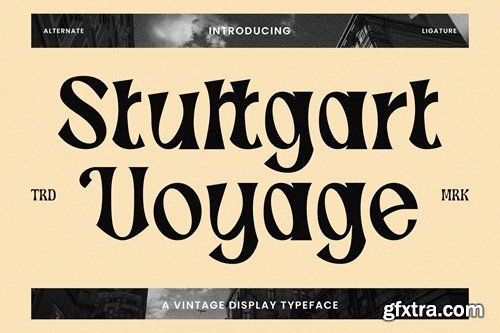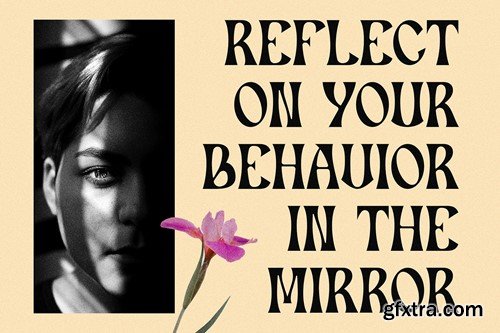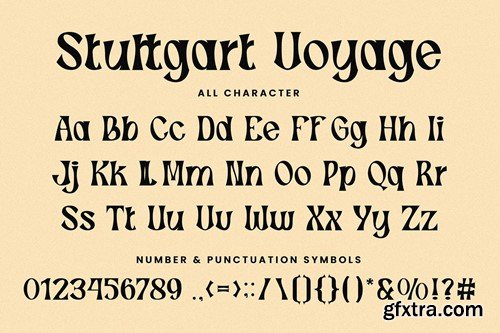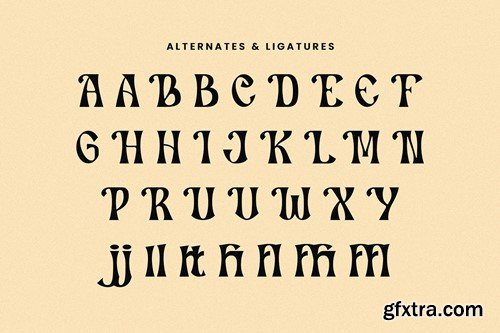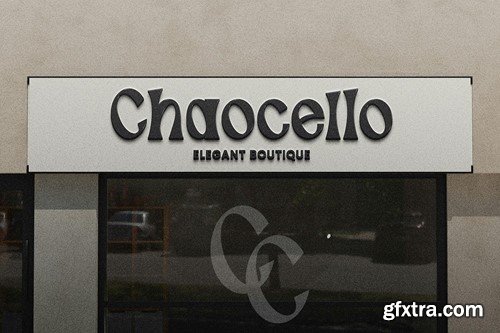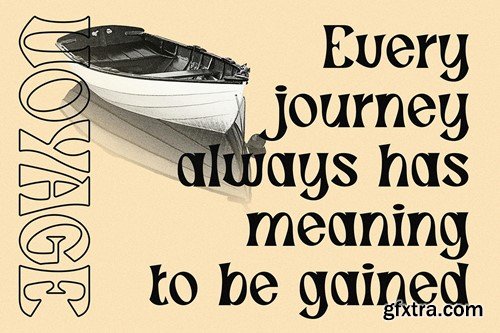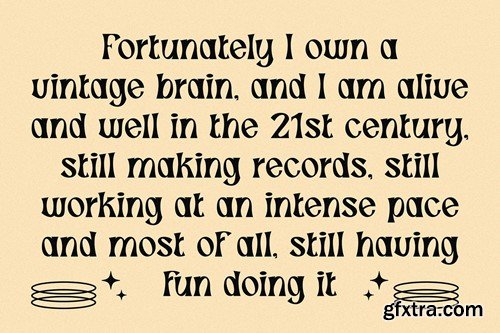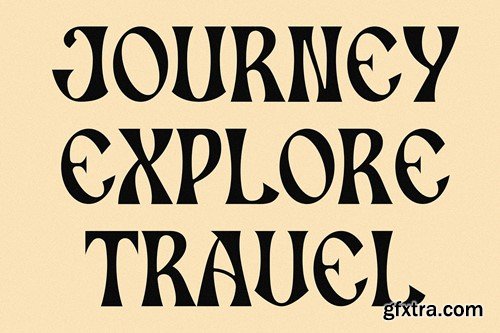
Stuttgart Voyage - Vintage Typeface Font MSMFUHL
Stuttgart Voyage - Vintage Typeface Font
Stuttgart Voyage - Vintage Typeface Font contains a lowercase, uppercase, symbol, and also supports multi-language. There’s a lot of ligature in this font. Stuttgart Voyage - Vintage Typeface Font also comes with ligatures, stylistic alternates, and many more. this font is suitable for fashion, branding, catalog, and other designs that you want.